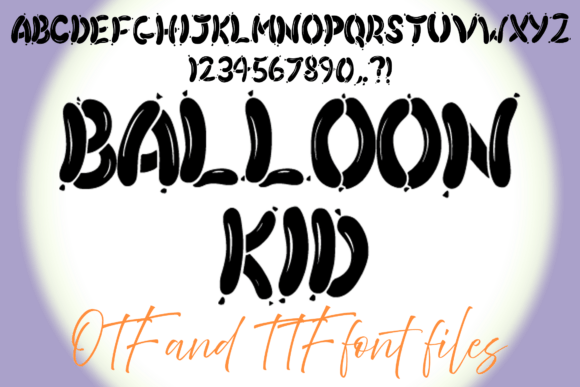
Introducing Balloon Kid Font: The Ultimate Display Font for Joyful Designs
Are you looking for a font that can add a touch of whimsy and playfulness to your designs? Look no further than the Balloon Kid font! This cute and quirky display font is perfect for designers who want to create joyful and eye-catching designs that stand out from the crowd. In this article, we’ll take a closer look at the Balloon Kid font, its features, and how you can use it to elevate your designs.
What is Balloon Kid Font?
Balloon Kid font is a display font designed to add a playful and cheerful touch to your designs. Its unique and quirky style makes it perfect for use in a variety of design projects, from posters and flyers to social media graphics and branding materials. The font features rounded edges, bouncy curves, and a carefree spirit that is sure to bring a smile to anyone’s face.
Key Features of Balloon Kid Font
- Cute and Quirky Design: The Balloon Kid font features a unique and playful design that is sure to grab attention.
- Display Font: This font is specifically designed for use as a display font, making it perfect for headlines, titles, and other prominent text elements.
- Rounded Edges: The font features rounded edges that give it a soft and friendly feel.
- Bouncy Curves: The bouncy curves in the font add to its playful and energetic feel.
- Carefree Spirit: The Balloon Kid font has a carefree spirit that is sure to bring a touch of joy to your designs.
How to Use Balloon Kid Font in Your Designs
The Balloon Kid font is a versatile font that can be used in a variety of design projects. Here are a few ideas to get you started:
- Posters and Flyers: Use the Balloon Kid font to create eye-catching posters and flyers that grab attention.
- Social Media Graphics: Add a playful touch to your social media graphics with the Balloon Kid font.
- Branding Materials: Use the font to create unique and memorable branding materials, such as logos, business cards, and letterheads.
- Invitations and Party Decor: The Balloon Kid font is perfect for use in invitations, party decor, and other celebration-themed designs.
Benefits of Using Balloon Kid Font
There are many benefits to using the Balloon Kid font in your designs. Here are a few:
- Adds a Touch of Whimsy: The Balloon Kid font adds a touch of whimsy and playfulness to your designs.
- Grabs Attention: The font’s unique and quirky design is sure to grab attention and draw the eye.
- Perfect for Kids and Adults Alike: The font’s playful design makes it perfect for use in designs for both kids and adults.
- Easy to Read: Despite its playful design, the Balloon Kid font is easy to read, even at smaller sizes.
Tips for Using Balloon Kid Font Effectively
Here are a few tips for using the Balloon Kid font effectively in your designs:
- Use it Sparingly: While the Balloon Kid font is playful and fun, it can be overwhelming if used too much. Use it sparingly to add a touch of whimsy to your designs.
- Pair it with Other Fonts: Pair the Balloon Kid font with other fonts to create a unique and interesting contrast.
- Experiment with Colors: The Balloon Kid font looks great in a variety of colors. Experiment with different colors to find the one that works best for your design.
The Balloon Kid font is a unique and playful display font that is perfect for designers who want to add a touch of whimsy to their designs. With its cute and quirky design, rounded edges, and bouncy curves, this font is sure to bring a smile to anyone’s face. Whether you’re creating posters, social media graphics, or branding materials, the Balloon Kid font is a great choice. So why not give it a try and see how it can elevate your designs?
- What is the Balloon Kid font?: The Balloon Kid font is a display font designed to add a playful and cheerful touch to your designs.